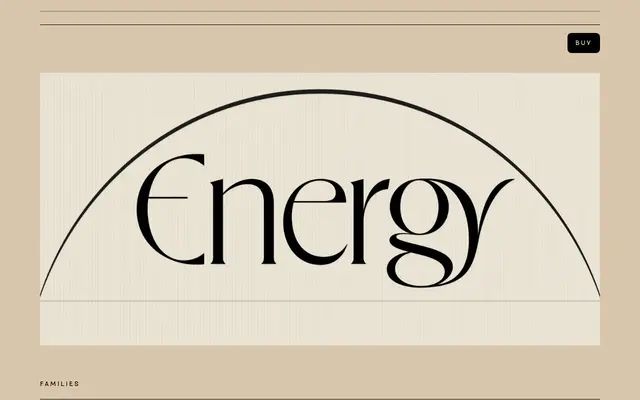
Eros
Eros specimen from VJ Type
A display typeface rooted in Jugendstil and Vienna Secession aesthetics, grown from two custom commissions for a Paris theatre and a Pharrell Williams restaurant project.
Designed by Jérémy Schneider and released in 2022, Eros merges two previously bespoke typefaces into a single family of six styles across standard and condensed widths. The Condensed variant goes beyond a simple squeeze: its oval O is programmed to adapt contextually depending on whether it sits next to upper or lowercases, adding optical flow to running text. Sixty pairs of ligatures across upper and lowercases, plus a full set of alternates for characters such as v, w, k and y, give the family considerable range for editorial, cultural and luxury brand work.
Eros is a display typeface drawing on Jugendstil and Vienna Secession aesthetics, with organic letterforms, elaborate ligatures and contextual alternates that place it firmly in the decorative display category rather than text use.
Eros Condensed